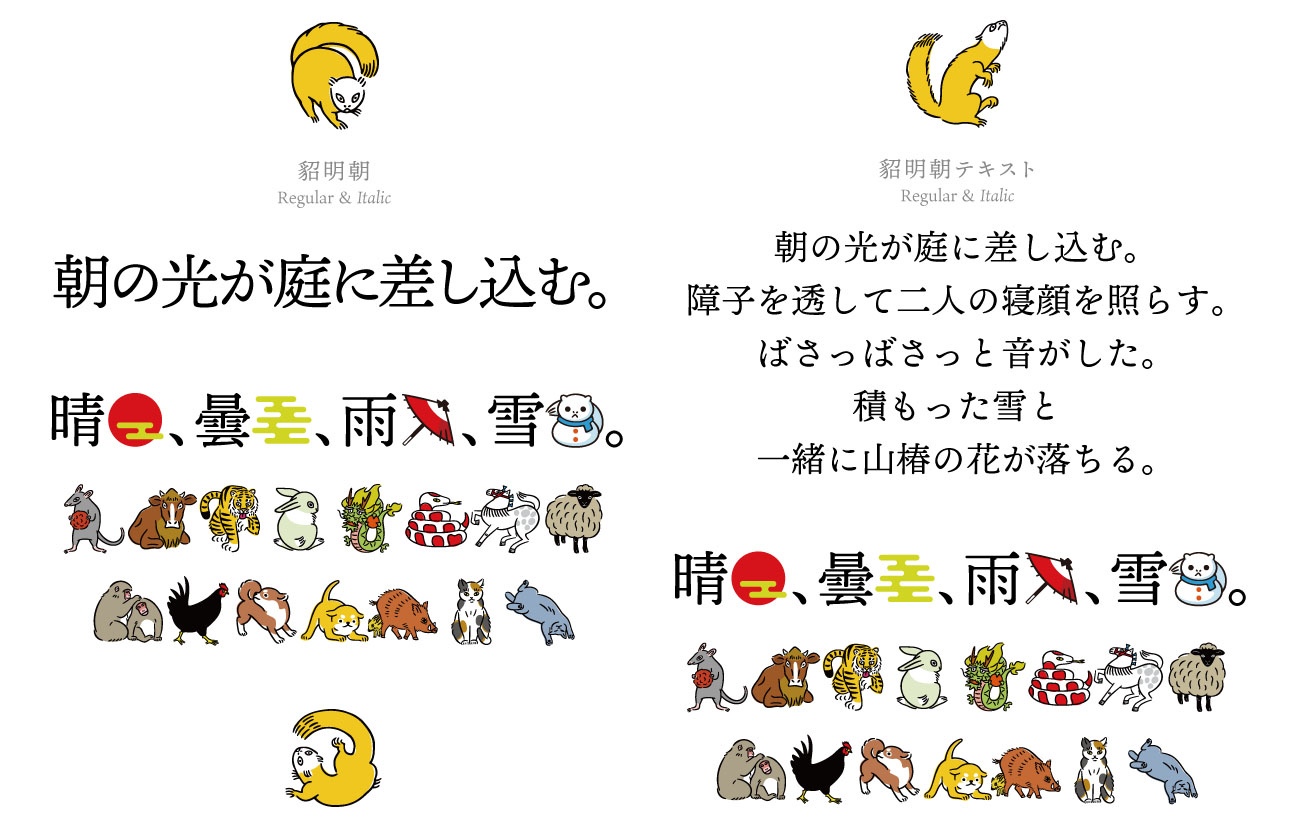
Ten Mincho & Ten Mincho Text Font
What makes Ten Mincho Font exciting is its serene precision that embodies the timeless elegance and philosophical depth of Japanese typography and cultural aesthetics. The font features refined letterforms with delicate strokes and harmonious proportions that evoke calligraphy brushes, rice paper, and the mindful artistry of traditional Japanese design. Its distinctive East Asian styling and contemplative character communicate wisdom, balance, and cultural sophistication, making every message feel touched by centuries of artistic refinement and spiritual contemplation.
The Ten Mincho Font family includes regular weight with Latin characters designed in Japanese mincho style, numerals, punctuation marks, and special characters. Premium versions often feature traditional alternates and cultural elements that enhance the authentic, Japanese aesthetic perfect for cultural and hospitality applications.
The contemplative character of Ten Mincho Font makes it particularly effective for authentic Japanese restaurants, cultural institutions, and wellness centers. Its excellent readability ensures menu descriptions and cultural information remain clear while maintaining the distinctive Japanese aesthetic that appeals to customers seeking genuine East Asian cultural experiences and traditional artistic beauty.
Cultural hospitality professionals appreciate how Ten Mincho Font effortlessly conveys authenticity and cultural respect. The font's balanced proportions and traditional details create trustworthy brand materials that establish connections with audiences who value cultural authenticity, traditional craftsmanship, and the serene beauty of Japanese design philosophy.